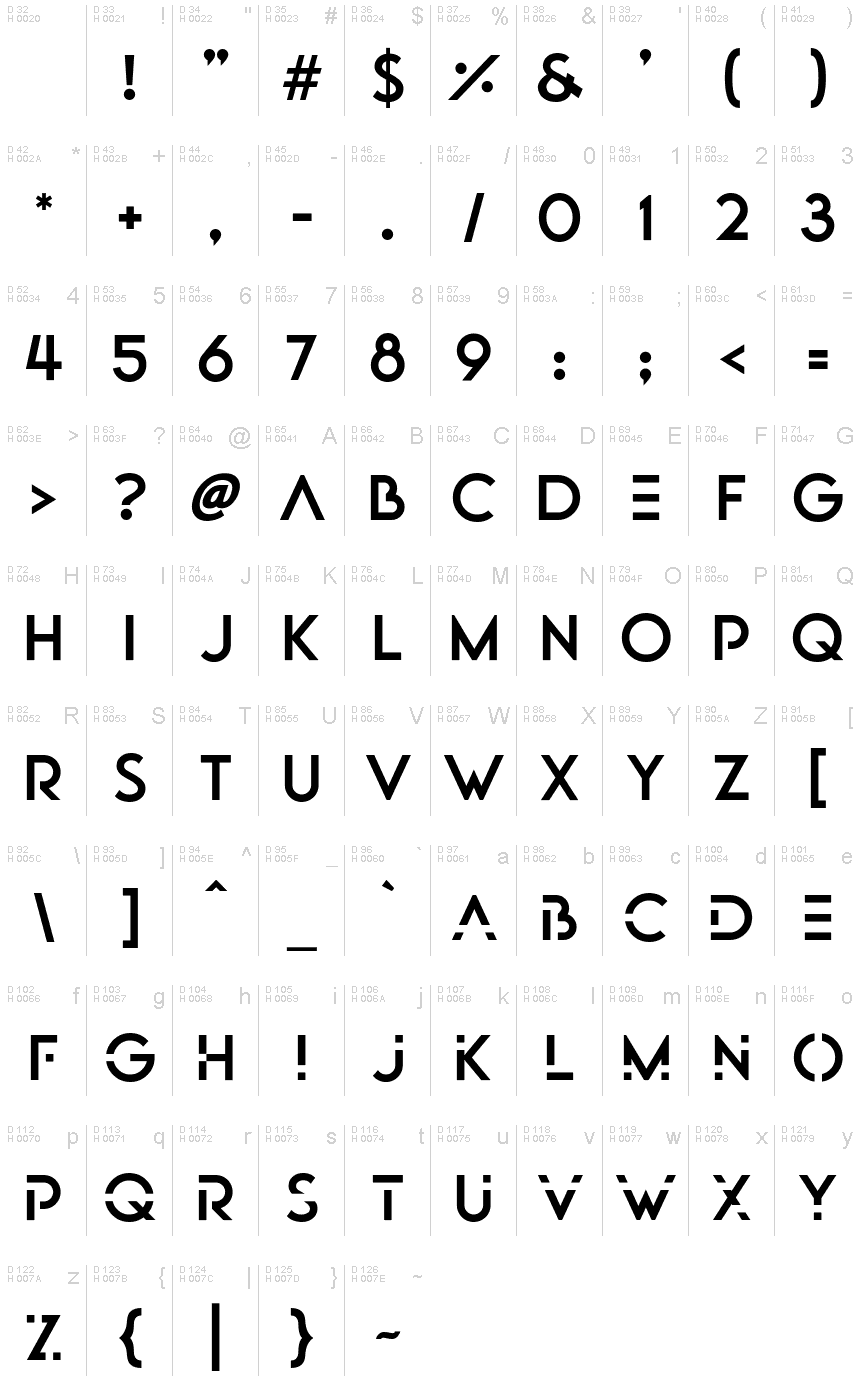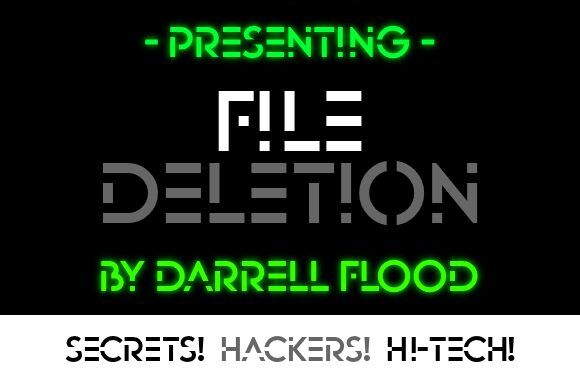
File Deletion
File Deletion, a cutting-edge creation by Hawtpixel, is a display font that effortlessly blends futuristic elements with a distinct stencil style.
Its semi-expanded width adds a touch of uniqueness, making it ideal for projects that demand attention and innovation. Perfect for sci-fi movie posters or video game titles, this font will add a sleek and modern aesthetic to any design. Whether you're designing an album cover for an electronic artist or creating striking advertisements for tech companies, File Deletion is the perfect choice to captivate your audience.